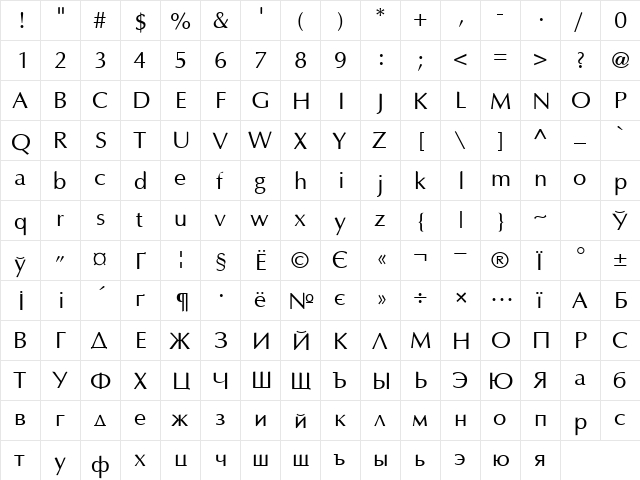
Optima Cyr Regular
Design Context for Optima Cyr Typeface
Optima Cyr offers clean, dependable letterforms without strong stylistic allegiance, making it a practical choice for designers who need flexibility.